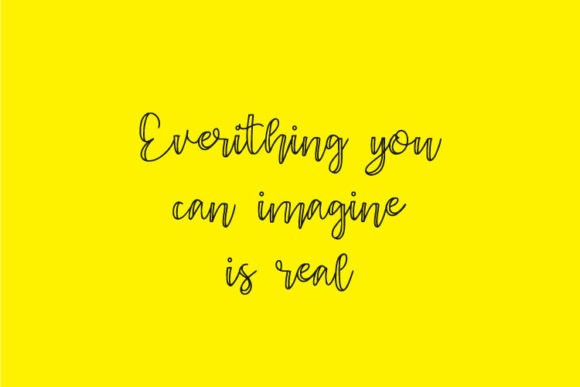
Ahatar Font
Ahatar Script Font is a delicate and sweet script font, that looks perfect on logos, name tags, advertising, product packaging, clothing, social media & greeting cards. This font is PUA encoded, which means you can access all of the glyphs and swashes with ease!